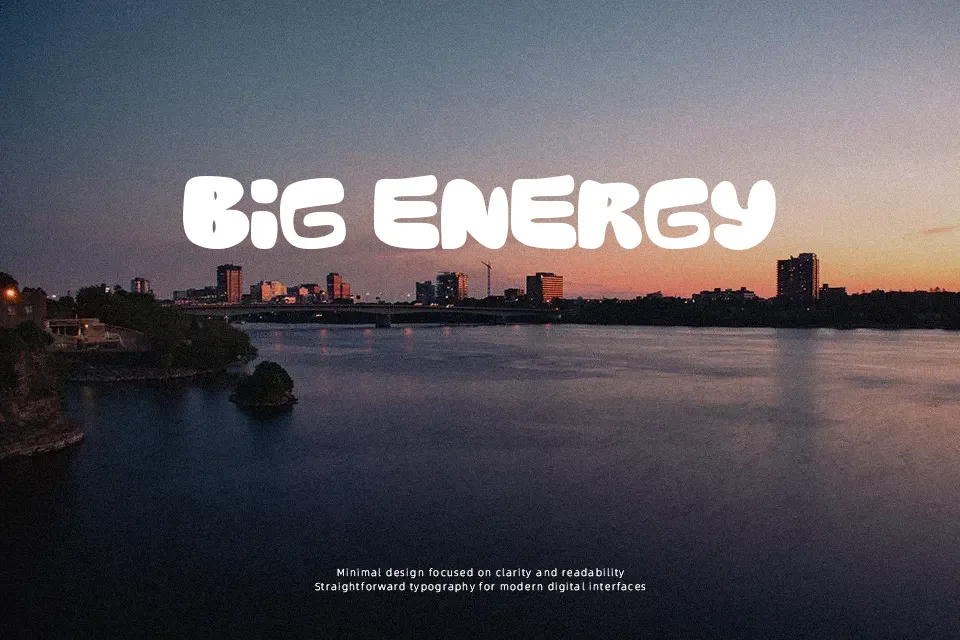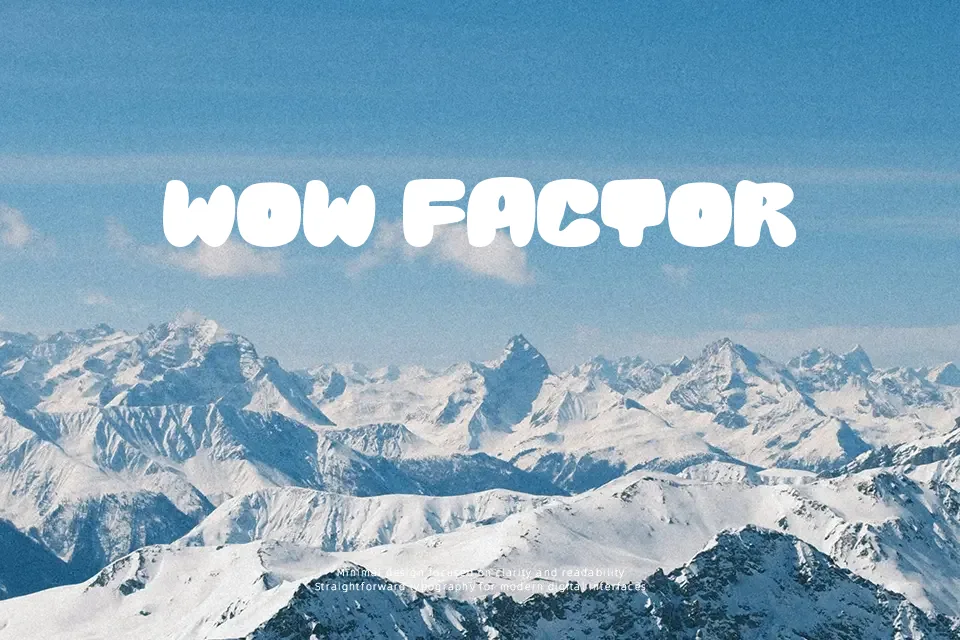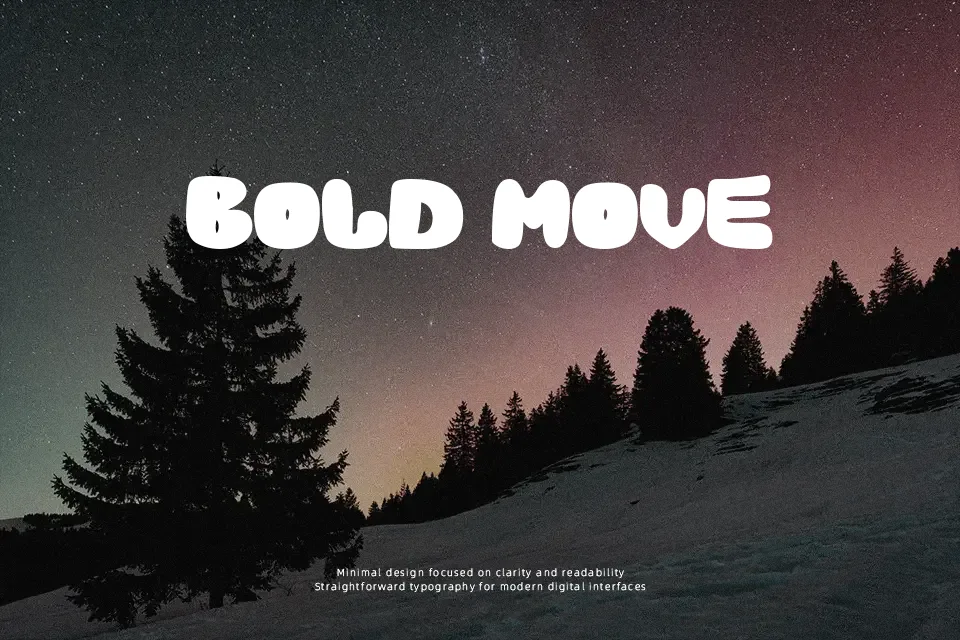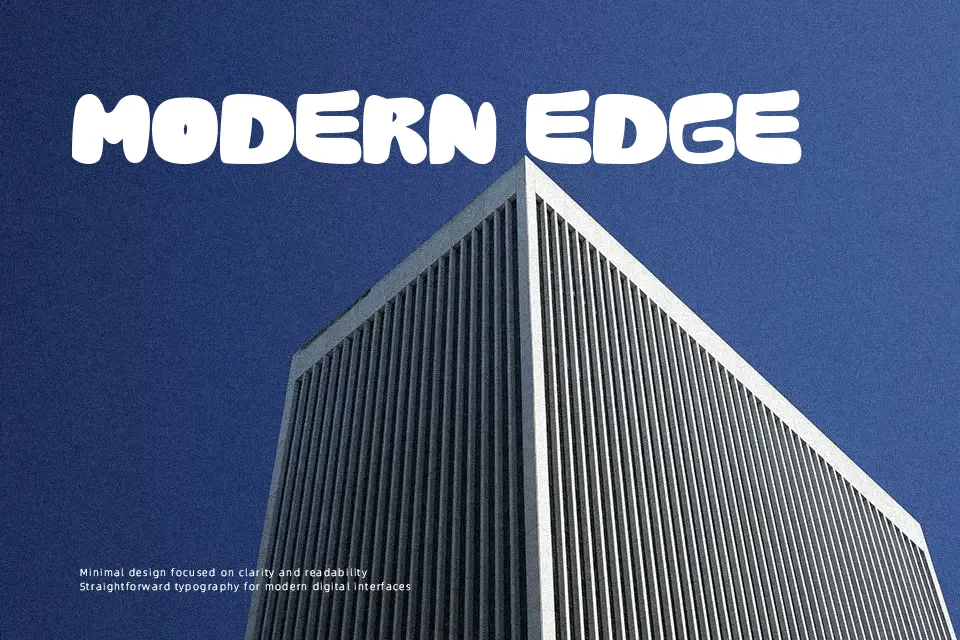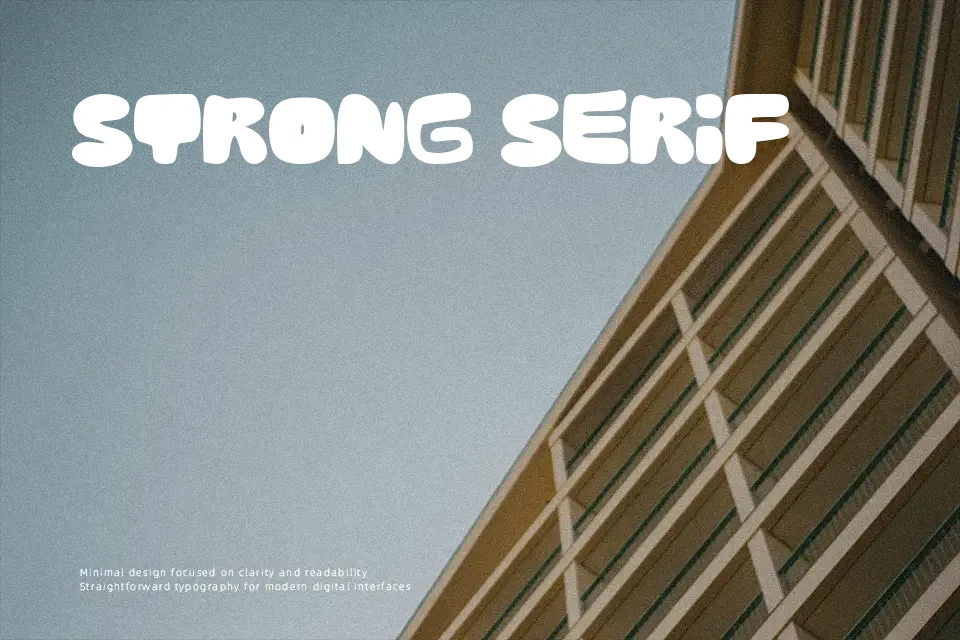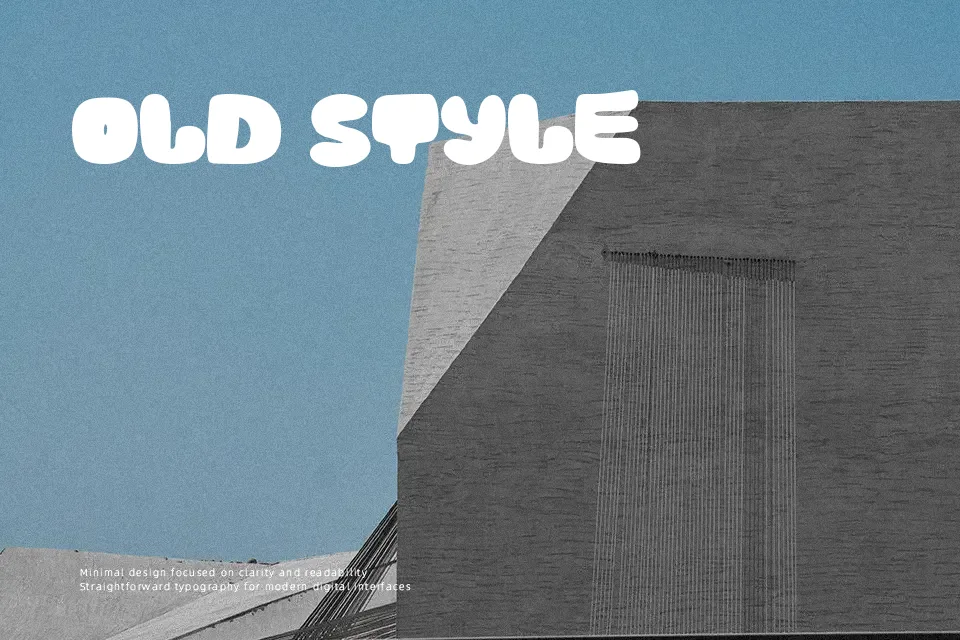
The Duck Company Font
The Duck Company Font establishes an energetic cartoon appearance with plump strokes, rounded terminals, and wide character spacing. The all-caps letterforms maintain a stable horizontal rhythm, making headlines and short phrases immediately distinguishable. Generous counters and uniform line weight help the design hold up well across toy packaging, youth apparel, and casual event graphics. However, the heavy weight and informal geometry make continuous reading uncomfortable in paragraphs or long blocks of text. The typeface performs best when displayed at larger sizes where its relaxed, rounded shapes can stand out cleanly.
Best For: children book titles, animated game logos, toy packaging labels, casual party banners
Not Ideal For: continuous body text, corporate annual reports, small interface labels, legal agreements